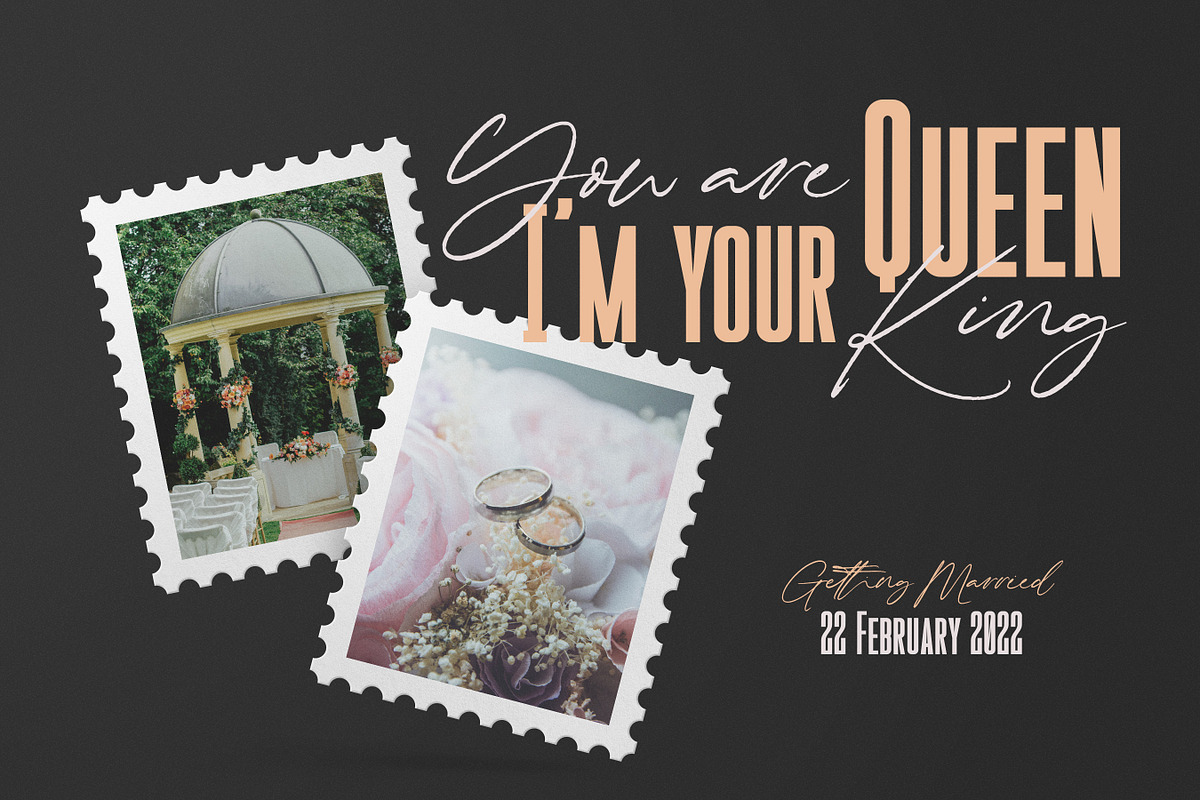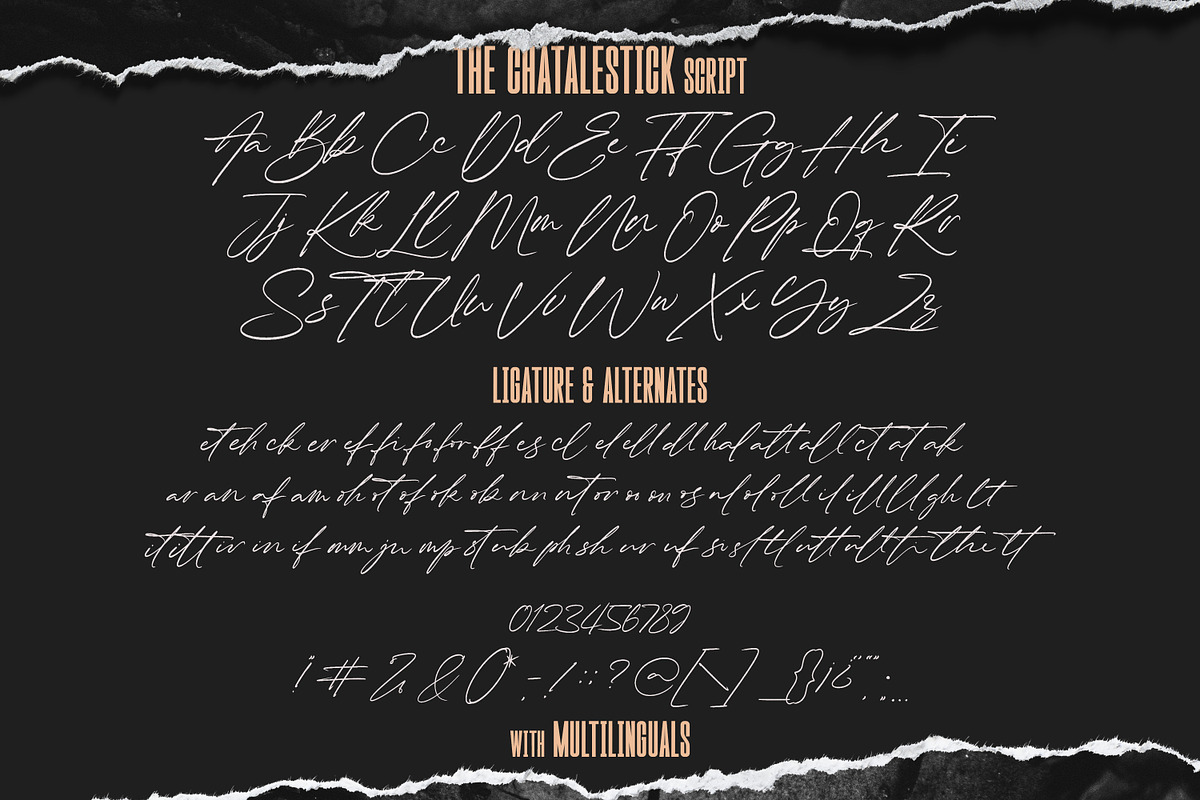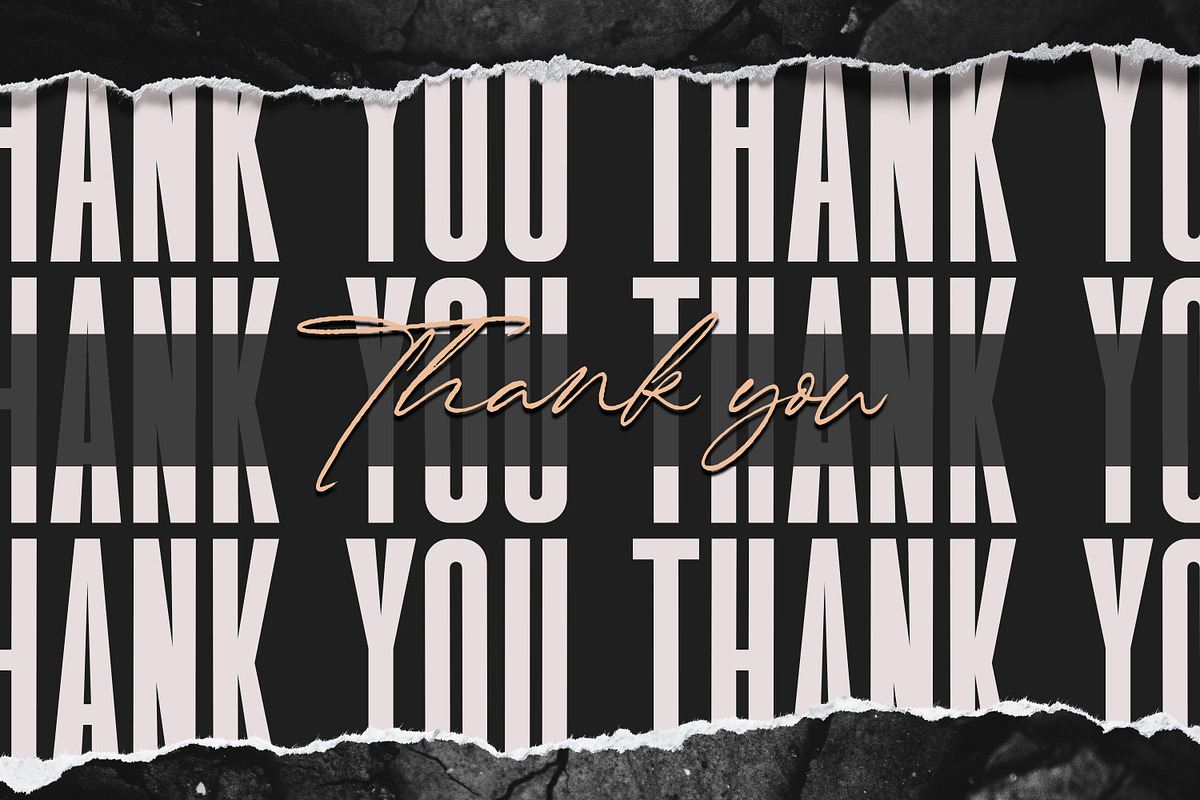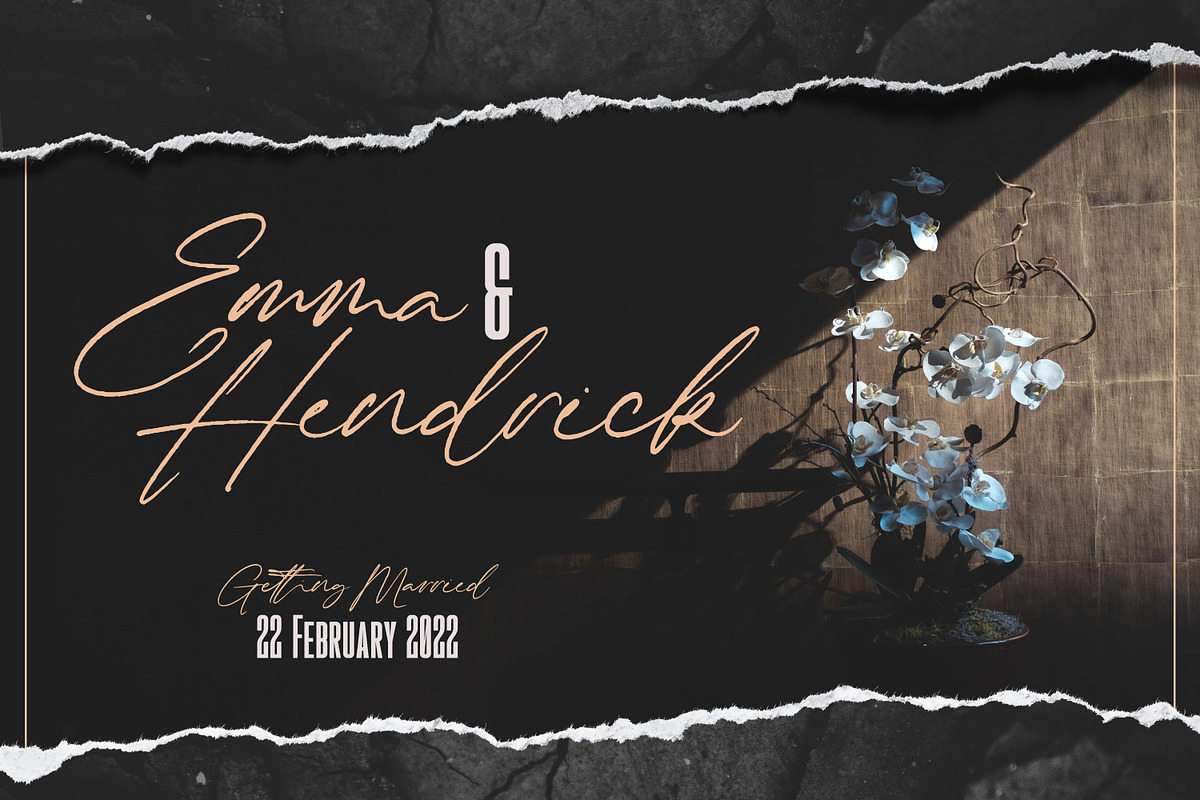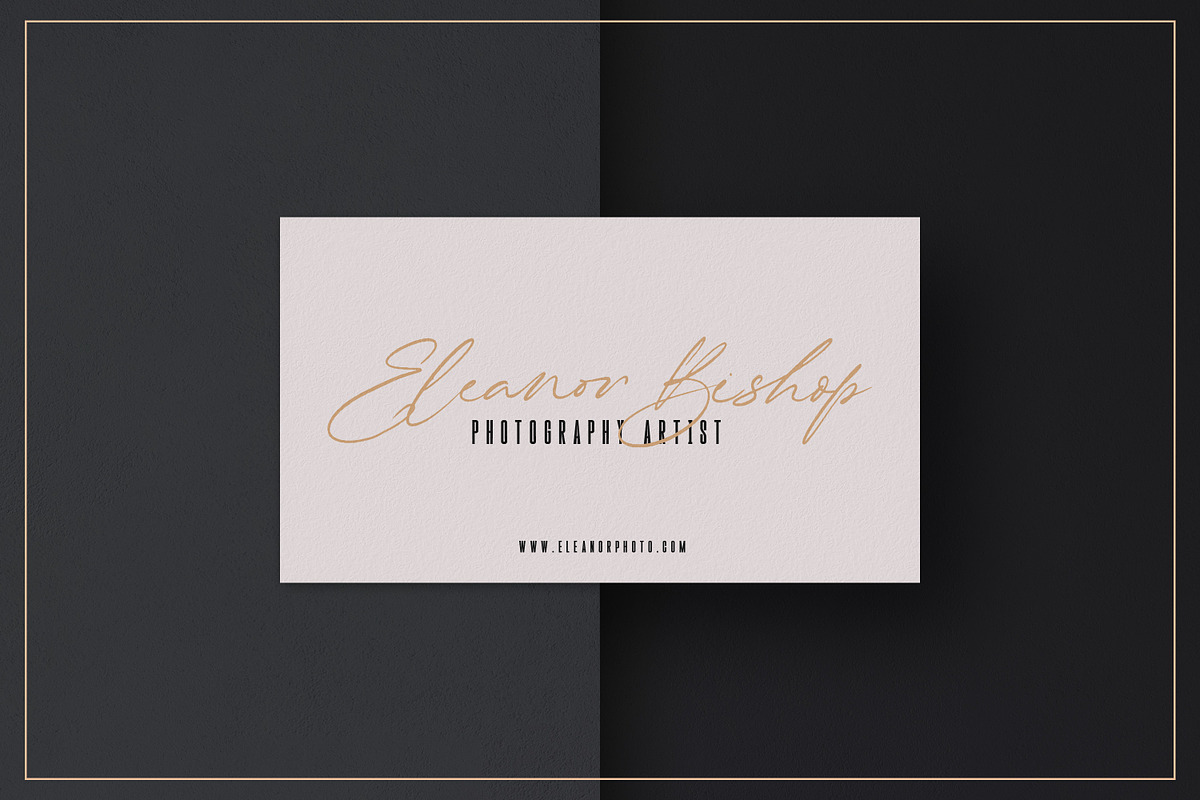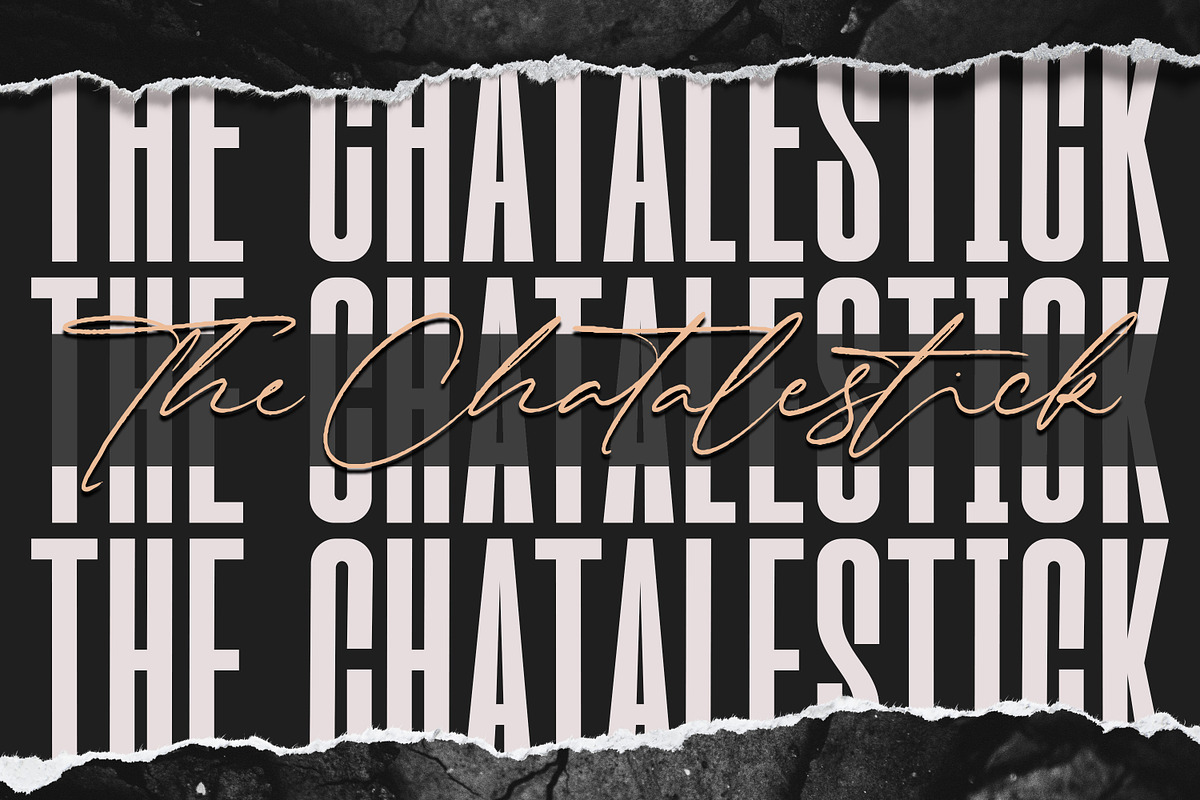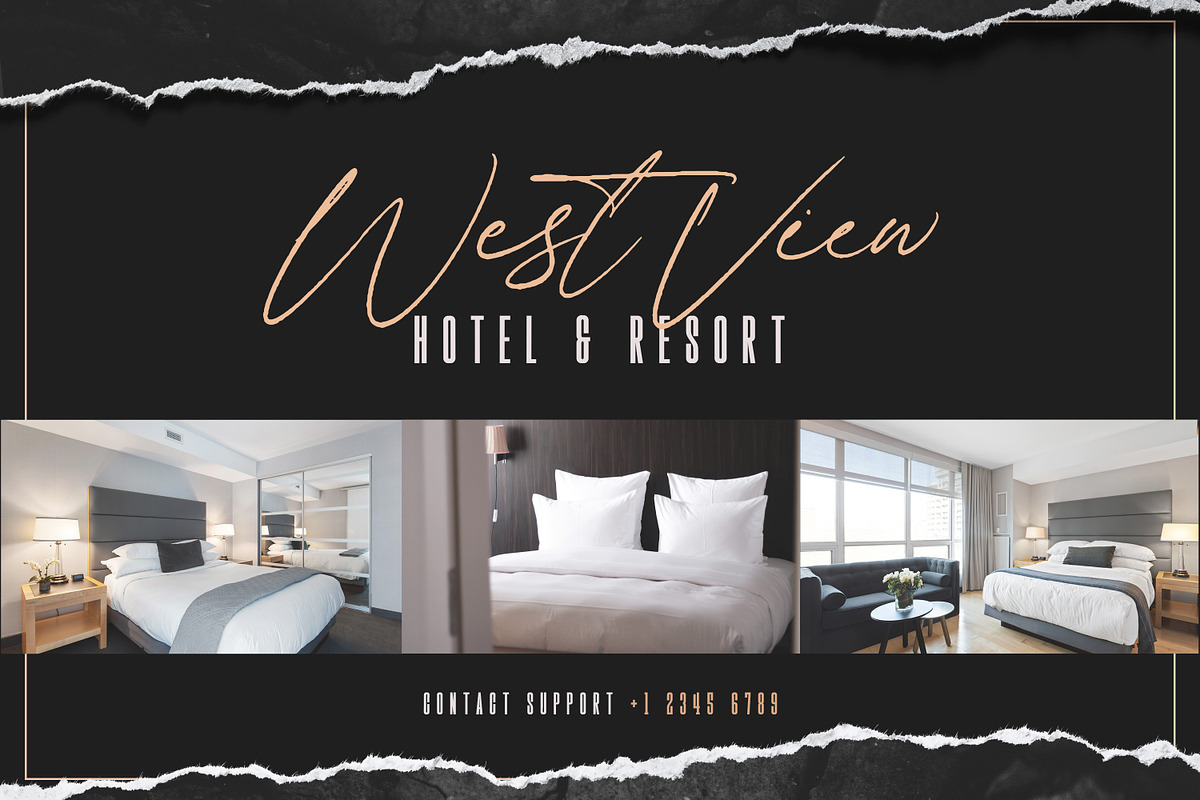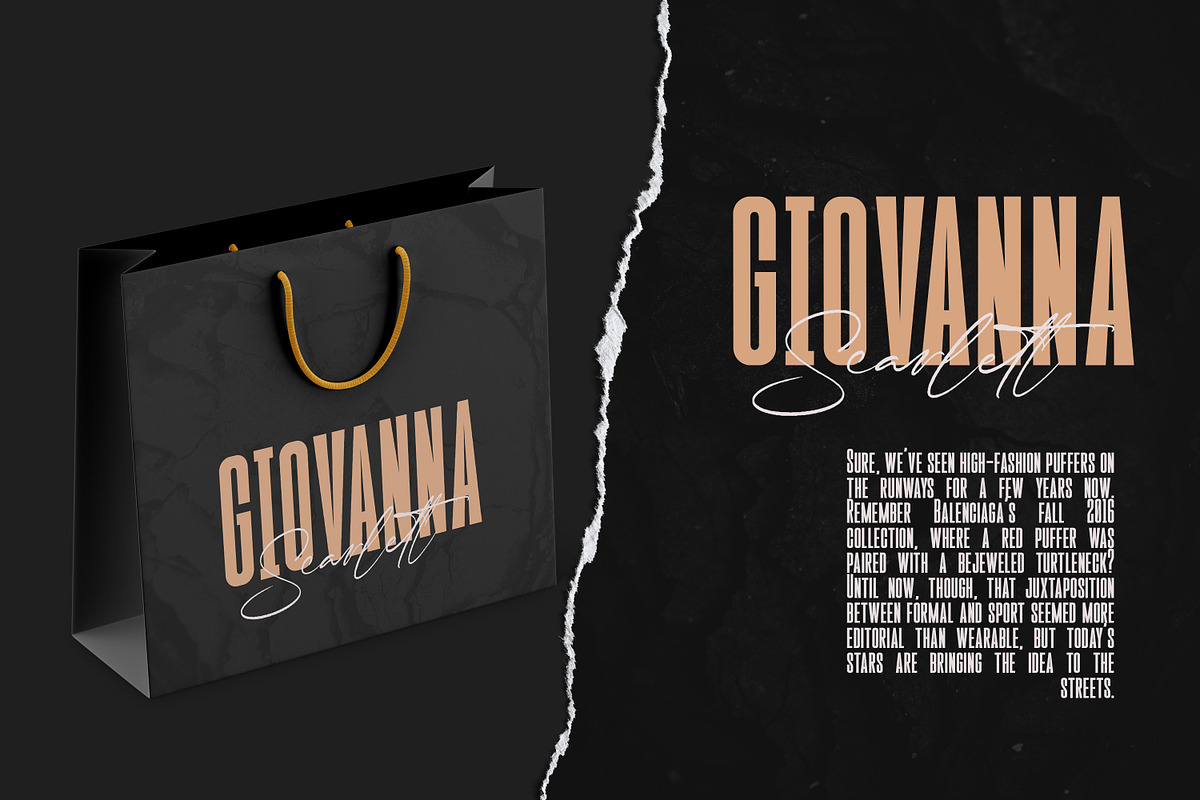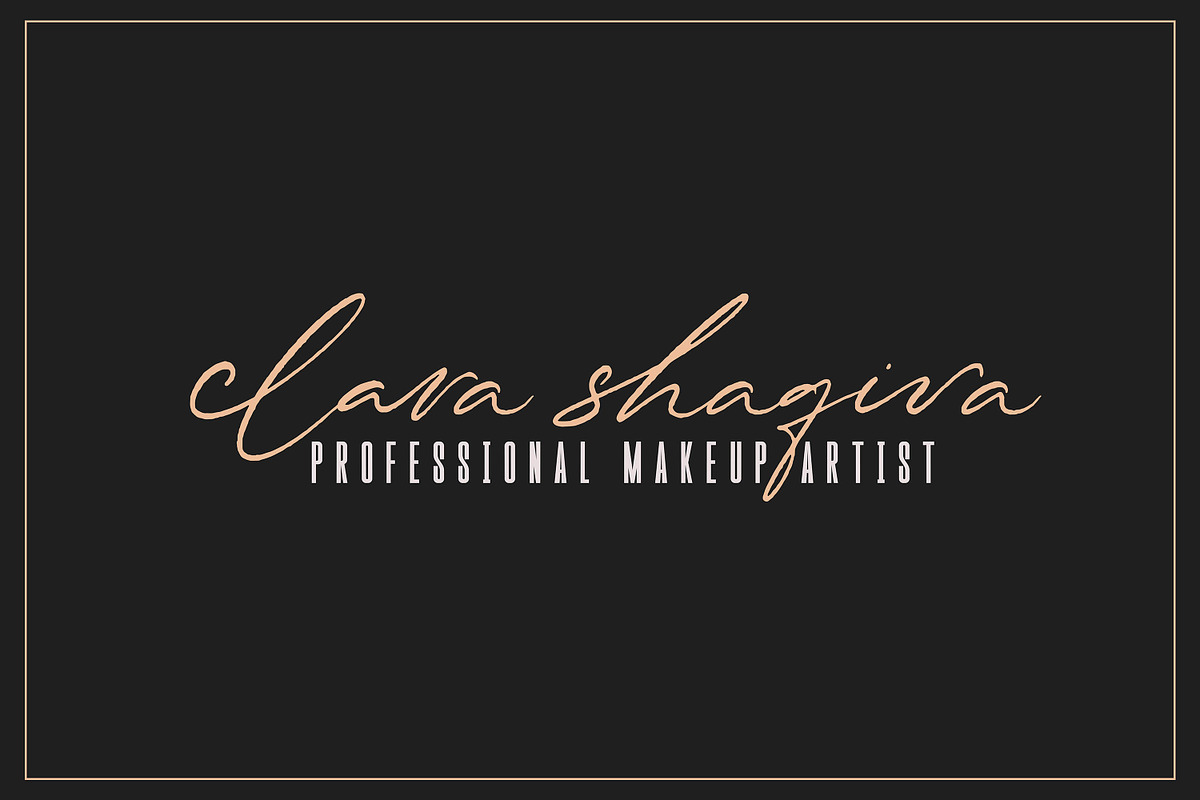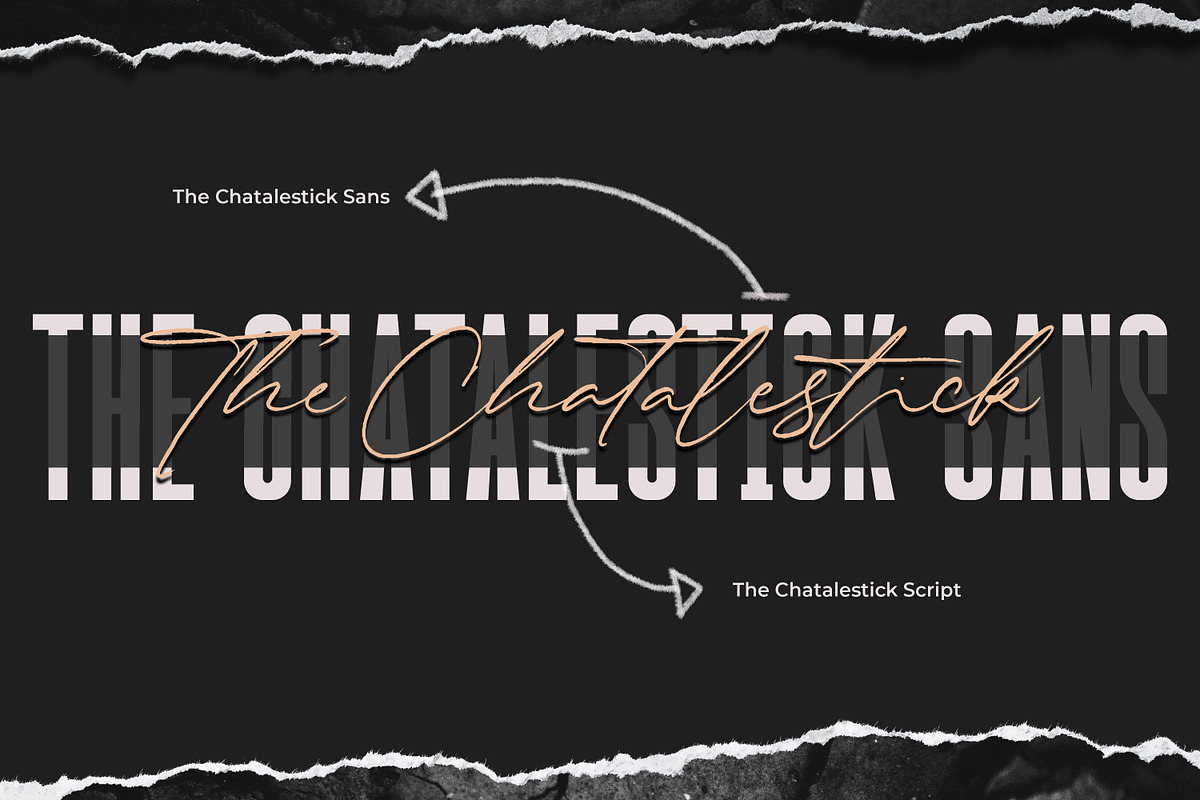
The Chatalestick - Strong Condensed
Introducing The Chatalestick - Font Duo is a new Strong Condensed Sans and Classy script font. Elegant and Best Quality script that is written casually and quickly with 65 ligature. The condensed Sans versions are solid and intentionally making strong statements even in small spaces. The Chatalestick also provides the script version which has Natural handwriting with Rough stroke and classy flow. It comes with various opentype 65 ligature to achieve the natural handwriting look. The Chatalestick is perfect for homeware designs,branding projects, Logo, design, Quotes, Product packaging, Photography, Watermark
- Alternate glyphs